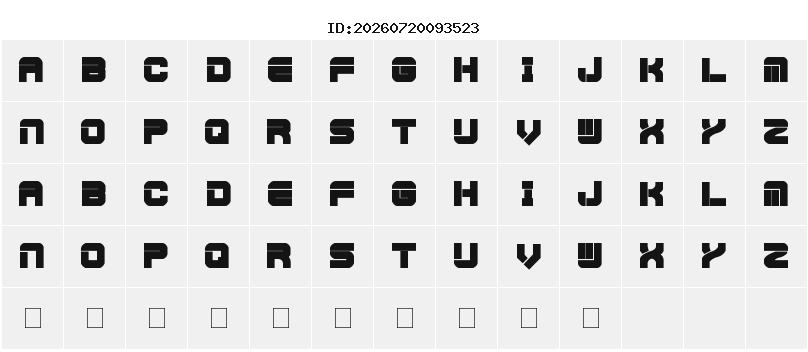
Futura Original Preview
• Font Name: Futura Original
• Designer: Martin Holm
• Manufacturer: Spacefish Productions
• Description: A futuristic kind of font, therefore the name Futura
About Futura Original.ttf
Futura Original.ttf is a modern, elegant sans-serif font designed for ultimate readability and visual harmony. Perfect for branding, headlines, web design, and print materials.